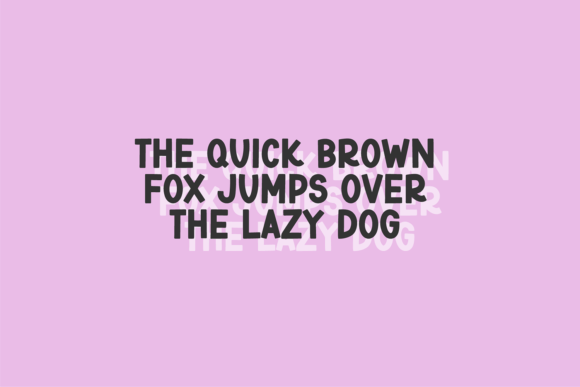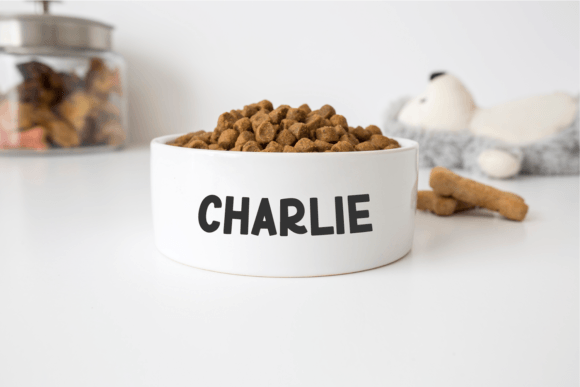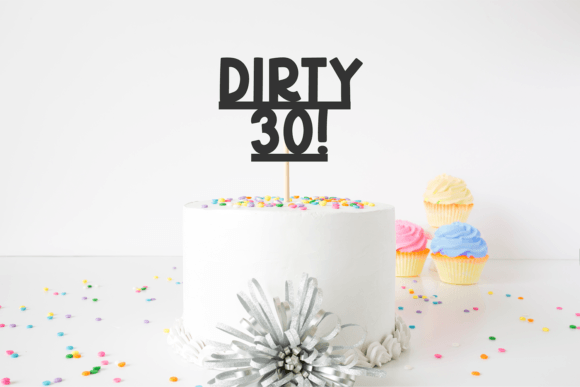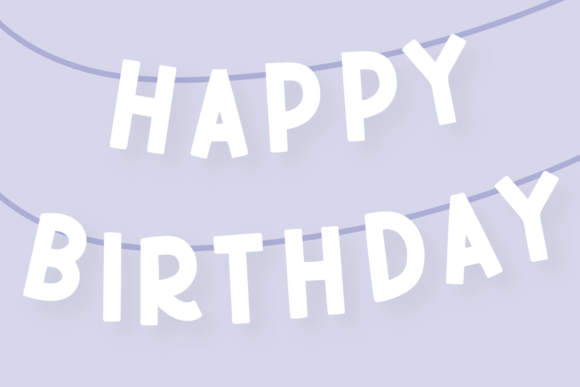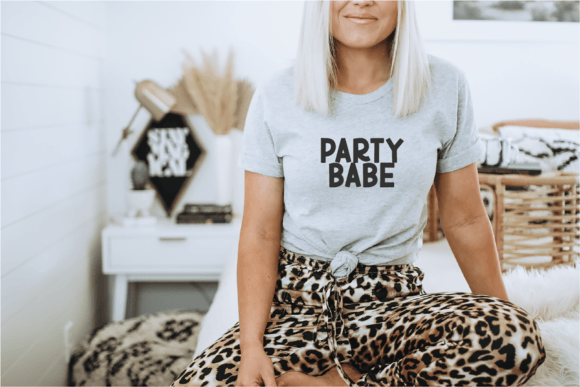
Introducing the Birthday Party Font: A Fun and Trendy Display Font for Your Creative Projects
Are you looking for a font that can add a touch of fun and excitement to your creative projects? Look no further than the Birthday Party font! This trendy display font is perfect for social media graphics, crafty projects, and more. In this article, we’ll take a closer look at the features and benefits of the Birthday Party font, and explore the many ways you can use it to elevate your designs.
What is the Birthday Party Font?
The Birthday Party font is a fun and playful display font that is designed to make a statement. With its bold and eye-catching design, this font is perfect for adding a touch of whimsy and excitement to your projects. Whether you’re creating social media graphics, crafting invitations, or designing decor, the Birthday Party font is sure to make your project stand out.
Key Features of the Birthday Party Font
The Birthday Party font comes with a range of features that make it perfect for creative projects. Some of the key features include:
- All caps glyphs: The Birthday Party font features all caps glyphs, making it perfect for titles, headings, and other display text.
- Numbers and basic punctuation marks: In addition to letters, the font also includes numbers and basic punctuation marks, making it versatile and easy to use.
- Trendy design: The Birthday Party font has a trendy and modern design that is sure to appeal to designers and crafters alike.
Uses for the Birthday Party Font
The Birthday Party font is incredibly versatile, and can be used for a wide range of creative projects. Here are just a few ideas to get you started:
- Social media graphics: Use the Birthday Party font to create eye-catching social media graphics, including Facebook posts, Instagram stories, and more.
- Invitations: Create custom invitations for parties, events, and other special occasions using the Birthday Party font.
- Crafts and decor: Use the font to create custom signs, banners, and other decorative items for parties and events.
- Branding: Use the Birthday Party font to create custom branding elements, including logos, business cards, and more.
Why Choose the Birthday Party Font?
So why choose the Birthday Party font for your creative projects? Here are just a few reasons:
- Unique and eye-catching: The Birthday Party font has a unique and eye-catching design that is sure to make your project stand out.
- Easy to use: The font is easy to use and comes with a range of features, including all caps glyphs, numbers, and basic punctuation marks.
- Versatile: The Birthday Party font can be used for a wide range of creative projects, from social media graphics to crafts and decor.
Tips for Using the Birthday Party Font
Here are a few tips for using the Birthday Party font in your creative projects:
- Experiment with colors: The Birthday Party font looks great in a range of colors, so don’t be afraid to experiment and find the perfect color for your project.
- Use it sparingly: While the Birthday Party font is eye-catching and fun, it can be overwhelming if used too much. Use it sparingly to add a touch of whimsy to your project.
- Pair it with other fonts: The Birthday Party font pairs well with a range of other fonts, so don’t be afraid to experiment and find the perfect combination for your project.
In conclusion, the Birthday Party font is a fun and trendy display font that is perfect for creative projects. With its bold and eye-catching design, all caps glyphs, numbers, and basic punctuation marks, this font is sure to make a statement. Whether you’re creating social media graphics, crafting invitations, or designing decor, the Birthday Party font is a great choice. So why not give it a try and see the difference it can make in your next project?